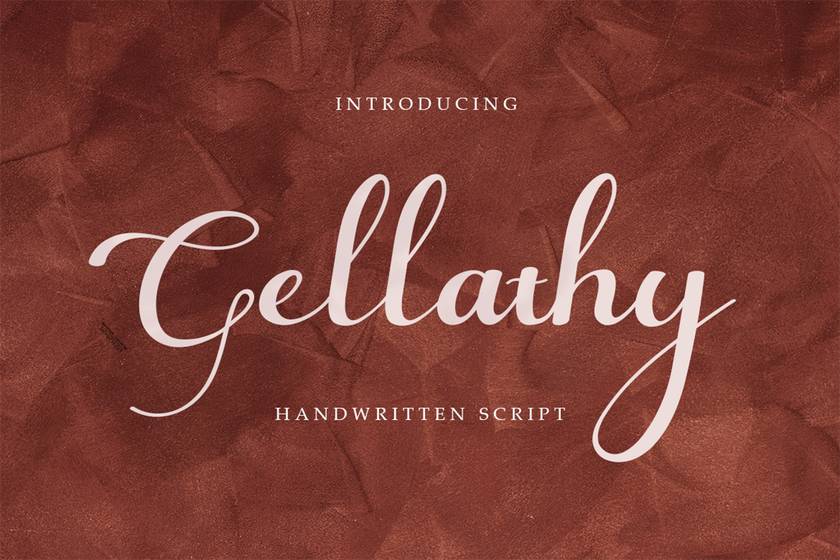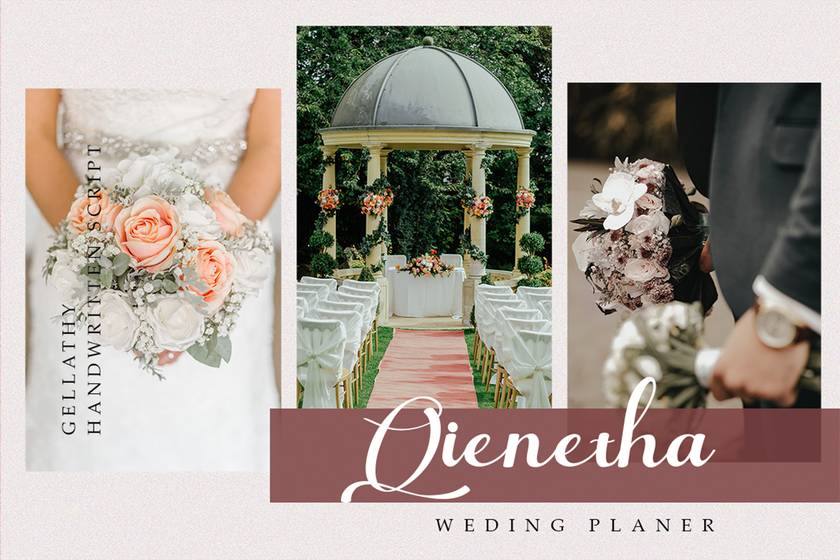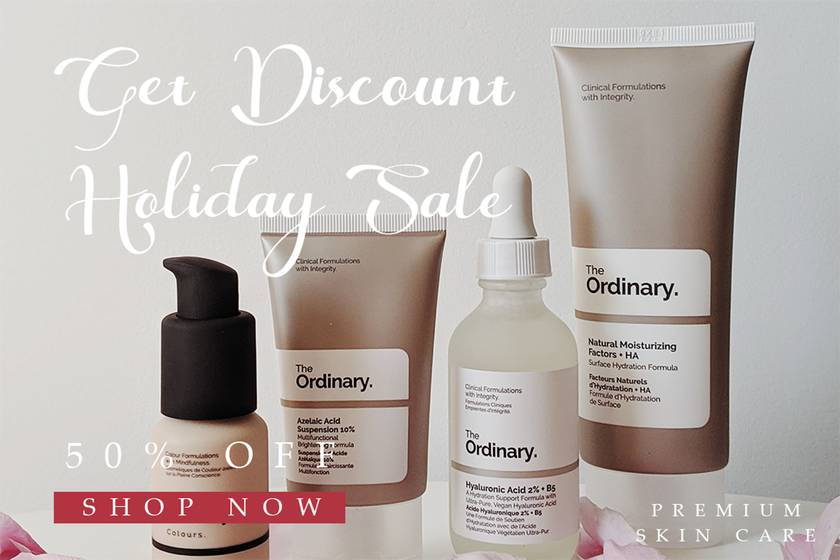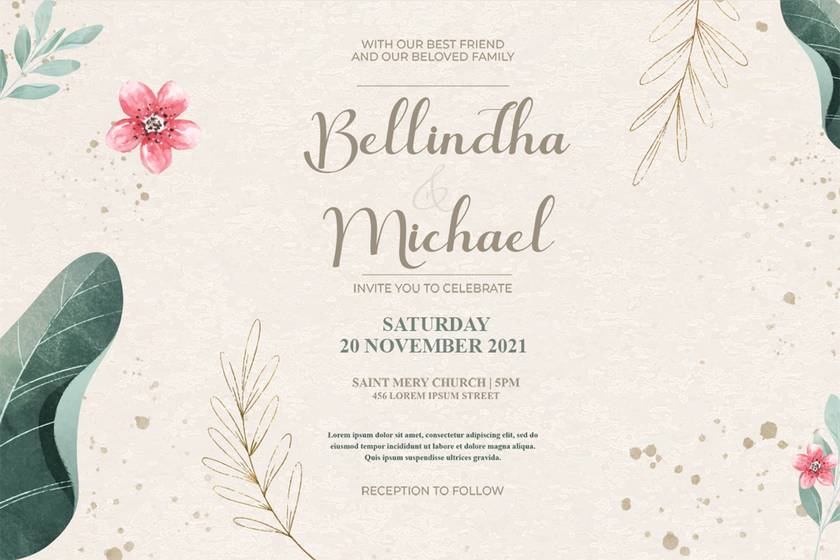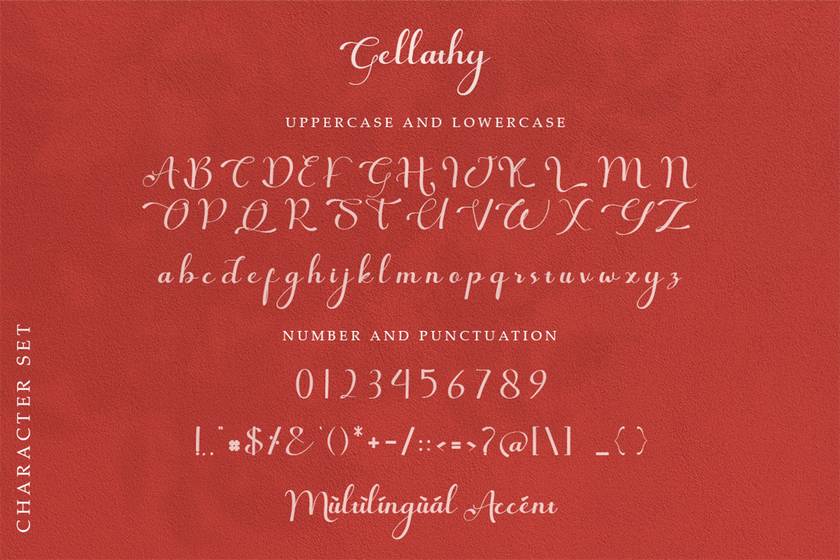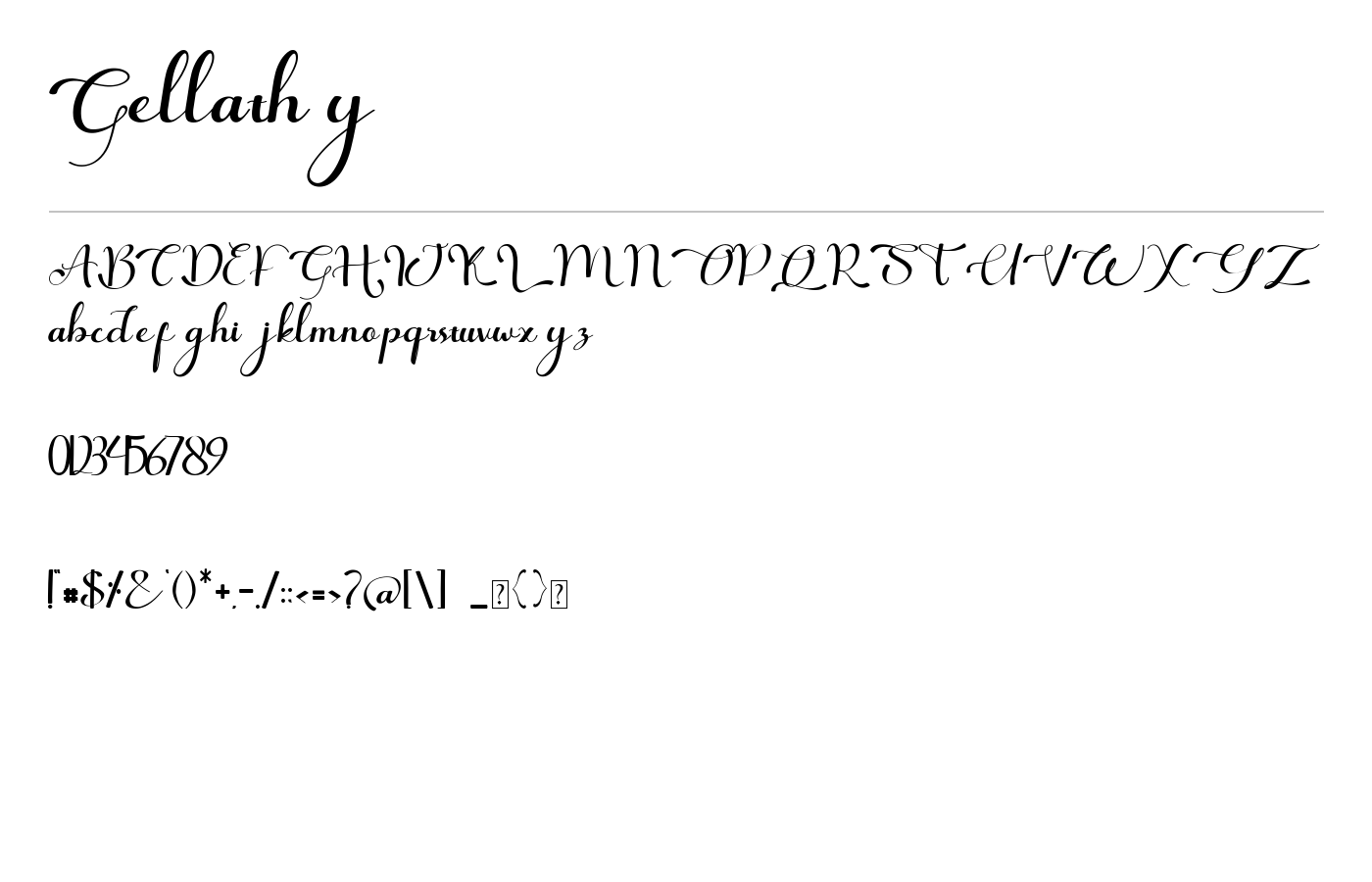
Gellathy is an elegant script font characterized by its flowing, delicate strokes and graceful, handcrafted feel. Its fine lines, tall x-height, and ornate uppercase letters make it ideal for luxury branding, wedding invitations, and sophisticated editorial design where a touch of refinement and personality is desired. This font’s stylish and artistic appearance lends a sense of timeless charm to any creative project.
Gellathy Font
About Gellathy Font
| Font family | Gellathy Font |
| Release date | 2021-05-20 |
| Designer | Typegoals |